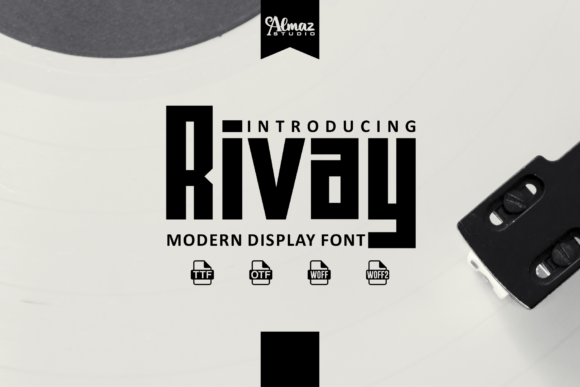
Unlock the Power of Expression with Rivay: The Bold Sans Serif Font for Personal Letters
In a world saturated with monotony, Rivay emerges as a beacon of individuality, a font that breathes life into your personal letters, transforming them into captivating expressions of your soul. Its sharp, distinctive features and moderately high contrast command attention, while its clean lines and sharp edges lend an air of sophistication and elegance. With Rivay, your letters transcend mere communication; they become works of art, imbued with your unique personality and style.
Immerse yourself in the versatility of Rivay, a font that seamlessly adapts to a myriad of creative endeavors. Whether you're crafting wedding invitations that exude romance and elegance or designing posters that demand attention, Rivay rises to the challenge. Its bold presence elevates album designs, adding a touch of drama and intrigue. Logos and website headers adorned with Rivay exude professionalism and leave a lasting impression. Even t-shirt designs infused with Rivay's energy become walking statements of individuality, sparking conversations wherever you go.
Unleash your creativity with Rivay, the perfect font for those who seek to make a statement. Its condensed spacing lends a striking visual appeal, transforming quotes, printed materials, and signage into captivating masterpieces. Rivay's versatility extends to branding and web design, where its clean lines and sharp edges create a sleek and sophisticated aesthetic. Embrace Rivay, the font that empowers you to communicate with impact and leave an indelible mark on the world.
With Rivay, the possibilities are endless. Explore the diverse weights, each possessing its own distinct character, and discover the perfect match for your creative vision. Whether you're crafting a heartfelt personal letter, designing a captivating poster, or building a brand that exudes confidence, Rivay stands ready to amplify your message and make your words resonate.